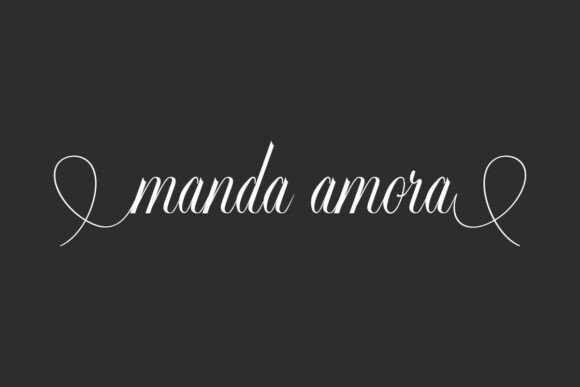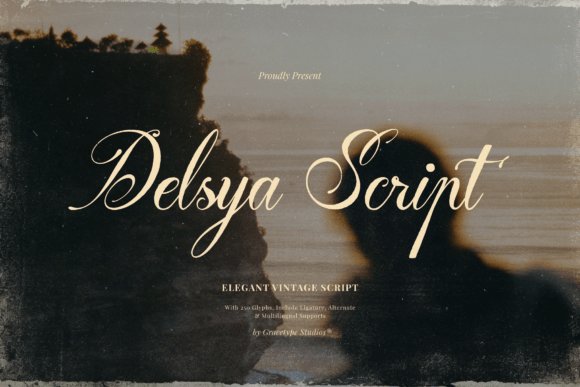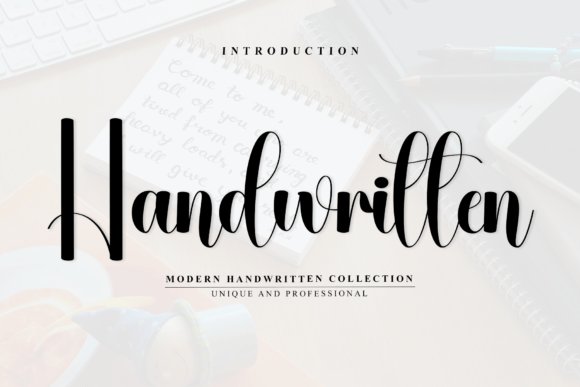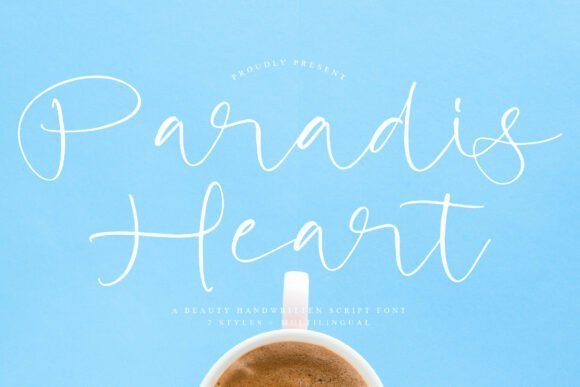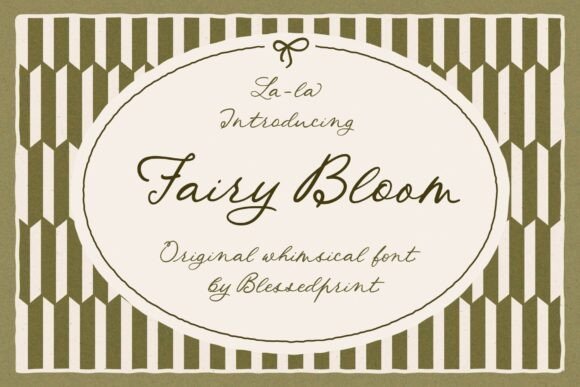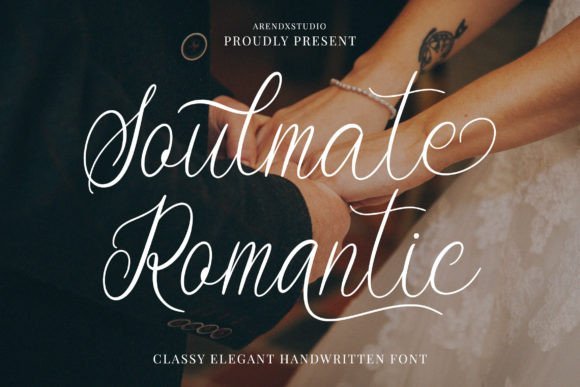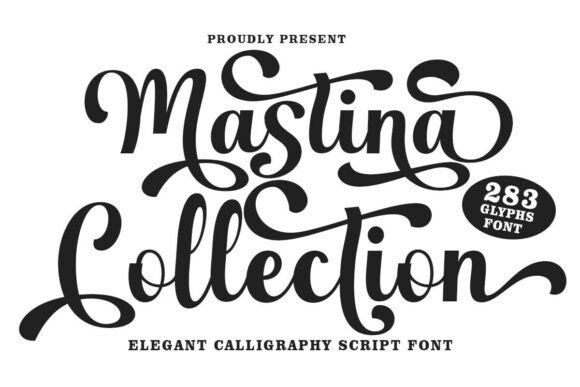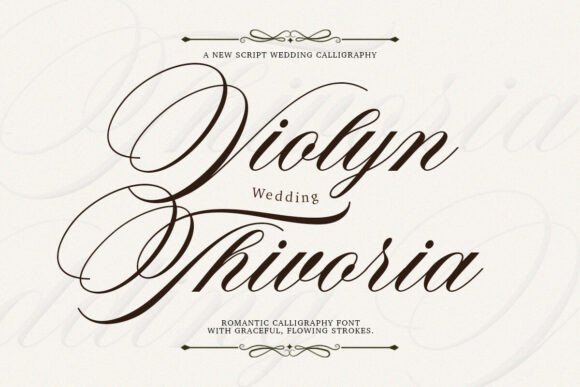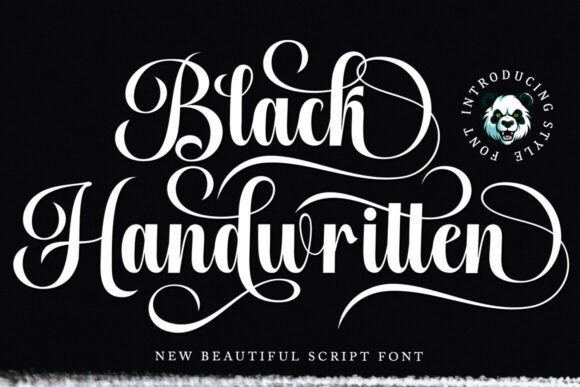
41 Gorgeous Romantic Fonts for Wedding Invitations 2026
Choosing the right romantic fonts for Wedding Invitations can shape the first impression guests receive. This list of 41 typefaces covers script, calligraphy, handwritten, and soft serif styles so you can match tone and formality.
Each entry includes pairing suggestions and brief style notes to help you decide between ornate scripts, modern calligraphy, or gentle serifs. Try samples at actual sizes and against your paper and color choices before finalizing text blocks.
1. Delsya Script
Delsya Script
Delsya Script sits among romantic fonts as a copperplate-inspired typeface that channels poetic nostalgia with dramatic capital swashes and long, elegant terminals. Its high-contrast downstrokes paired with whisper-thin horizontals produce a measured rhythm that reads like handcrafted letterforms, making headlines and labels feel cinematic and heritage-driven. The flowing connections and contextual alternates allow letters to interlock naturally, so you can build monograms and titlelines that look intentionally bespoke without fiddly manual editing.
On the production side, generous OpenType support-ligatures, stylistic sets and discretionary swashes-gives designers precise control over cadence and spacing. For pairings, a muted geometric sans or a compact old-style serif will hold body copy steady while the script occupies focal attention. For print, consider embossing or metallic foils to emphasize stroke contrast; on-screen, slightly increase size and loosen tracking to preserve the delicate hairlines.
2. Roselunia Script
Roselunia Script
Roselunia Script offers modern calligraphy with a poised, signature-like flourish: smooth flowing strokes, soft curves and a distinctly feminine temperament that reads refined without being fussy. Alternates and connecting ligatures make it simple to craft long, continuous words that feel handwritten, which suits bridal stationery, beauty product packaging, boutique logos and social headers. Because its charm is in the graceful connections, designers can use selective swashes to guide the eye across a composition without overpowering supporting graphics.
Be mindful that the slender connectors become delicate at small sizes, so reserve Roselunia for display contexts or pair it with a sturdy sans for longer copy. Color choices matter: muted blushes, watercolor washes and subtle metallics enhance the font’s soft personality and help it read as premium. Its balanced slant and tidy terminals maintain legibility while delivering an intimate, handcrafted tone for boutique brands and editorial headers.
3. Manda Amora Font
Manda Amora Font
Manda Amora Font reads like a personal note: irregular loops, gentle pressure shifts and a friendly baseline give the face an approachable, signature-driven character that feels intimate rather than ornate. It performs especially well for signature logos, greeting cards, handmade product tags and blog headers where a human touch strengthens brand personality. The set of alternate glyphs and loose rhythm lets words breathe, encouraging playful lockups and organic compositions that still maintain visual order.
Because many strokes sit on the lighter side, use Manda Amora at display sizes or on uncluttered backgrounds, and consider subtle shadows or reversed color blocks when placing it over texture. Pair it with a narrow grotesque for contrast or a restrained small-caps serif to anchor longer passages, and test kerning across initials to preserve the handwritten illusion. This font is a practical go-to for projects that need warmth and approachability without gimmicks.
4. Fairy Bloom Font
Fairy Bloom Font
Fairy Bloom Font – Fairy Bloom moves across the page with a whimsical, airy rhythm that reads like modern calligraphy given a playful twist. The package includes two uppercase sets, alternate lowercase endings, graceful swashes and a rich set of ligatures, and designers who choose romantic fonts are often drawn to Fairy Bloom for its capacity to add personality without overpowering layout hierarchy. Its irregular baseline and light stroke contrast make it particularly effective for invitations, event signage and mood-driven editorial headers.
In practical terms the family behaves well in both print and web environments: use generous line-height and allow its swashes room to breathe to avoid collisions in tight copy. Pair it with a restrained serif or clean sans for contrast, export as OTF/TTF for reliable glyph access, and treat alternate glyphs as compositional tools to create bespoke monograms and focal headlines.
5. Paradisheart Regular Font
Paradisheart Regular Font
Paradisheart Regular Font – Paradisheart Regular reads like practiced penmanship, its sweeping curves and soft texture suggesting ease and refinement rather than ornament for ornament’s sake. The family ships in two stylistic variants with full PUA encoding so alternates are directly available, and its steady stroke contrast preserves legibility at small sizes across different languages. This makes it a natural choice for packaging, editorials and stationery where a tender, handcrafted voice is required.
These 41 romantic fonts offer a broad range from airy, flowing scripts to refined serifs, giving you clear options for formal, boho, or vintage wedding aesthetics. Testing a handful on your invitation templates will reveal which face complements your wording and layout best.
Use the pairing tips and sample uses provided to narrow choices quickly, then review prints on your chosen stock to confirm legibility and tone. Small typographic choices make invitations feel intentional and memorable.